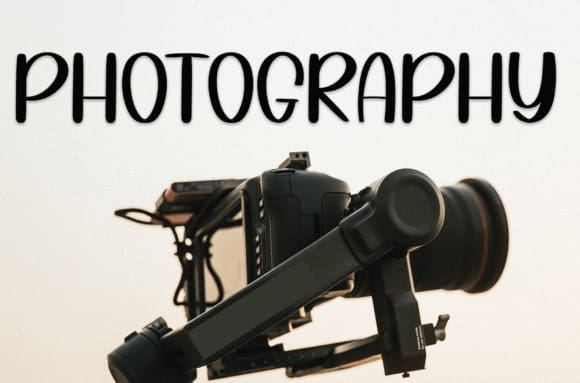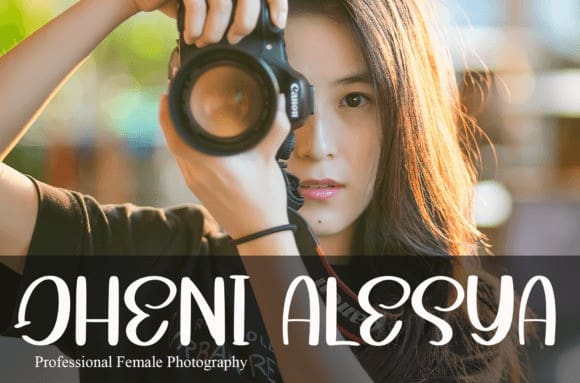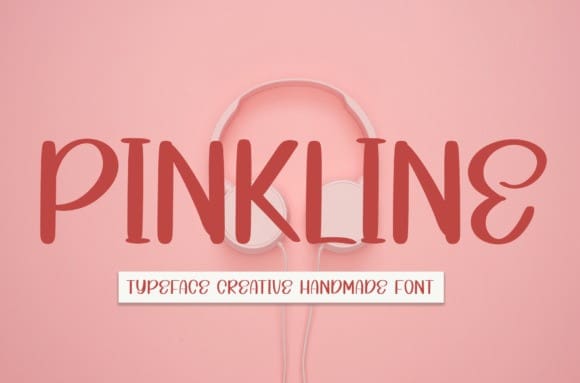
Pinkline Cute Font
Pinkline Cute Font is a sweet and friendly handwritten font. Fresh and neat, this font is ideal for writing wedding invitations, cards, or any other design that might need a fun touch!